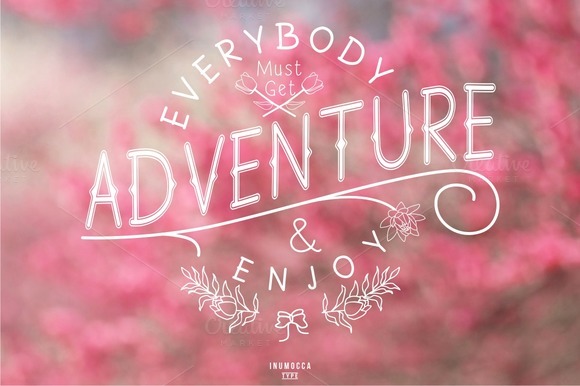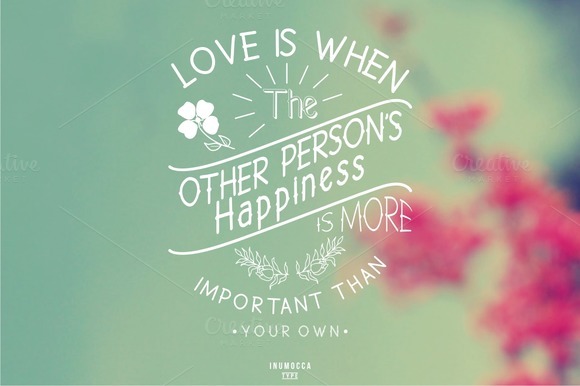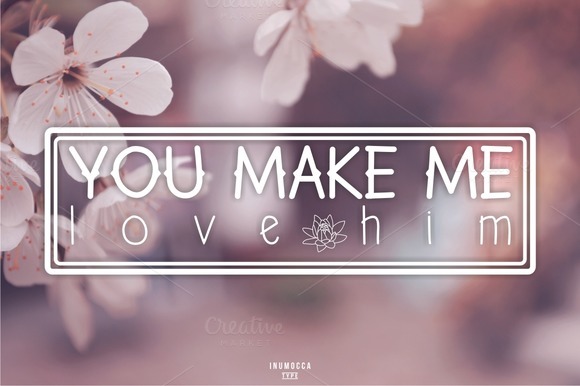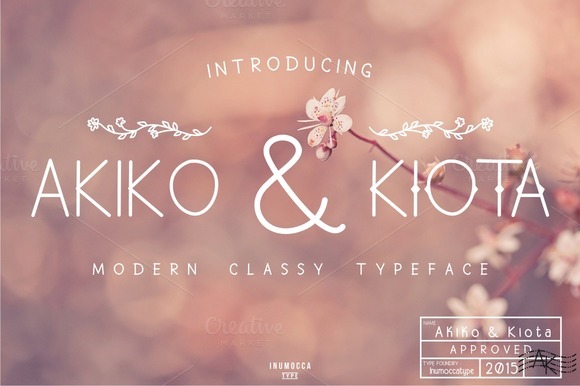
Introducing Akiko and Kiota Font: The Perfect Blend of Modern and Classic
Are you a designer or crafter looking for a typeface that can add a touch of elegance and sophistication to your work? Look no further than the Akiko and Kiota Font. This modern typeface is designed to give your projects a classic feel, making it perfect for a wide range of applications.
What is Akiko and Kiota Font?
AKIKO & KIOTA is a modern typeface that combines the best of both worlds – modern style and classic charm. This versatile font can be used for various purposes, including headings, logos, invitations, t-shirt designs, greeting cards, posters, labels, book covers, brochures, and much more. Its unique design makes it an excellent choice for designers and crafters who want to add a touch of sophistication to their work.
Key Features of Akiko and Kiota Font
- Modern and Classic Design: AKIKO & KIOTA has a unique design that blends modern style with classic charm, making it perfect for a wide range of applications.
- Versatile: This typeface can be used for various purposes, including headings, logos, invitations, t-shirt designs, greeting cards, posters, labels, book covers, brochures, and much more.
- Elegant and Sophisticated: AKIKO & KIOTA is designed to add a touch of elegance and sophistication to your work, making it perfect for designers and crafters who want to create high-end projects.
Use Cases for Akiko and Kiota Font
AKIKO & KIOTA is a versatile typeface that can be used in a wide range of applications, including:
- Headings and Logos: Use AKIKO & KIOTA to create stunning headings and logos that will make your brand stand out.
- Invitations and Greeting Cards: Add a touch of elegance to your invitations and greeting cards with this beautiful typeface.
- T-Shirt Designs: Create stunning t-shirt designs with AKIKO & KIOTA that will make your apparel stand out.
- Posters and Labels: Use this typeface to create eye-catching posters and labels that will grab attention.
- Book Covers and Brochures: Add a touch of sophistication to your book covers and brochures with AKIKO & KIOTA.
Why Choose Akiko and Kiota Font?
There are many reasons why you should choose AKIKO & KIOTA for your next project. Here are a few:
- Unique Design: AKIKO & KIOTA has a unique design that will make your project stand out from the crowd.
- High-Quality: This typeface is designed to provide high-quality results, making it perfect for professional designers and crafters.
- Versatile: AKIKO & KIOTA can be used in a wide range of applications, making it a great addition to your font library.
In conclusion, AKIKO & KIOTA is a modern typeface that will give your work a classic touch. Its unique design, versatility, and elegance make it perfect for a wide range of applications. Whether you’re a designer or crafter, this typeface is sure to become a great addition to your toolkit. So why wait? Download AKIKO & KIOTA today and start creating stunning projects that will leave a lasting impression.
- What is AKIKO & KIOTA?: AKIKO & KIOTA is a modern typeface designed to give your projects a classic touch.
- What can I use AKIKO & KIOTA for?: You can use AKIKO & KIOTA for various purposes, including headings, logos, invitations, t-shirt designs, greeting cards, posters, labels, book covers, brochures, and much more.